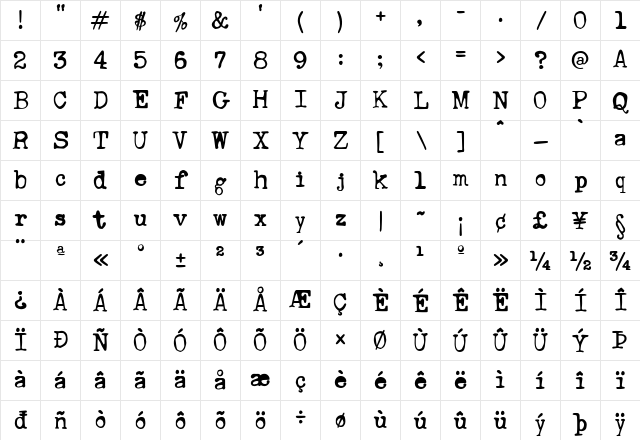
Complete Ana's Rusty Typewriter Regular glyph index. Displaying only characters natively supported by Ana's Rusty Typewriter Regular font.
Ana's Rusty Typewriter uses fixed-width spacing throughout, giving it the structured, systematic character associated with coding environments and technical documentation.
Pro Tip: Use Ana's Rusty Typewriter with slightly increased line-height for extended reading - fixed-width spacing can feel dense in longer passages without extra breathing room.